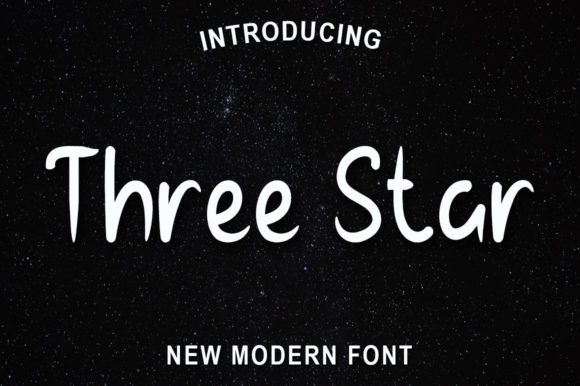
Unleash your creativity with Three Star Font, the ultimate font family for your newsletters. Captivating and easy on the eyes, this font family brings a touch of charm to your newsletters with its smooth curves and unique style. It's a font family that perfectly combines the essence of fashion and editorial design, making your newsletters stand out from the crowd.
Imagine your newsletters adorned with the grace of Three Star Font. Its modern and adaptable style seamlessly aligns with the dynamic nature of the fashion industry. With Three Star Font, you can create newsletters that are fashion-forward, enticing, and simply unforgettable. It's time to redefine your newsletters, adding a sprinkle of charm with each word you type.
Visualize your newsletters taking on a new dimension, where your words dance elegantly on the screen. With Three Star Font, your newsletters will turn into mini masterpieces, each word speaking volumes about your attention to detail and impeccable taste. Its simple yet effective design ensures that your newsletters are easily accessible, allowing your content to speak for itself.
When you choose Three Star Font, you're not just adding a font to your newsletters; you're embracing a new chapter of creativity. It's a font that fuels your imagination, allowing you to craft newsletters that are fashionably alluring and captivating. It's the perfect font family for fashionistas and editorial enthusiasts alike, a tool that brings your newsletters to life in ways you never thought possible.
With Three Star Font, you'll discover a font family that blends seamlessly with your creative spirit. It's the perfect companion for fashion-savvy individuals, a font family that understands your desire to make a statement with your words.